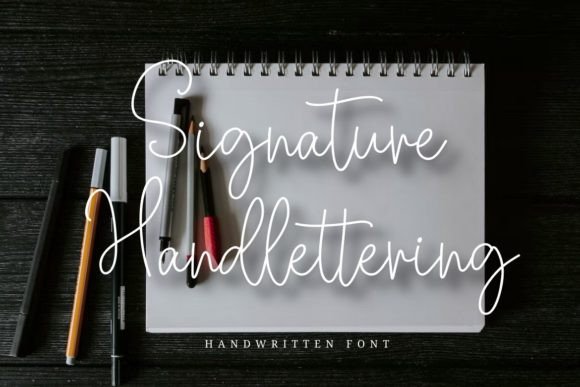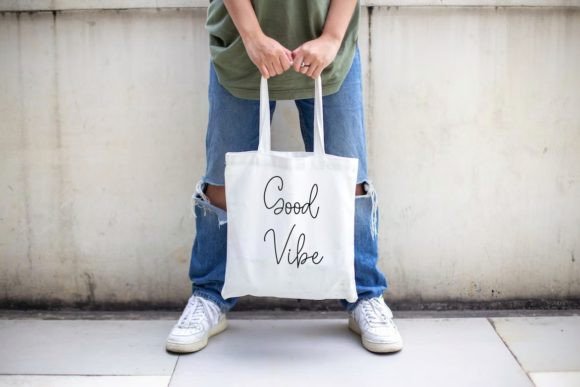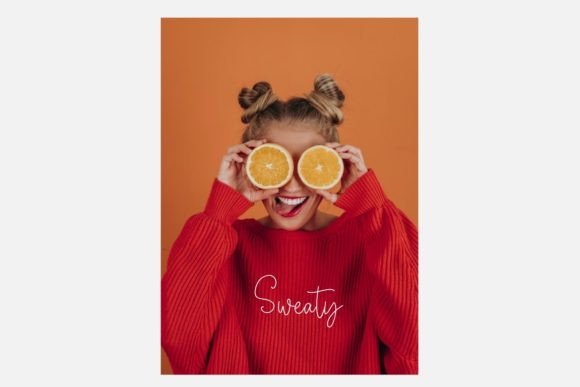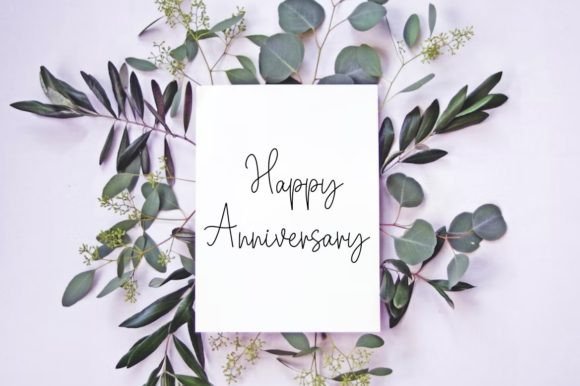
Signature Handlettering Font
About Signature Handlettering Font
Signature Handlettering is an authentic handwritten font with a romantic touch. Masterfully designed to become a true favorite, this font has the potential to bring each of your creative ideas to the highest level!